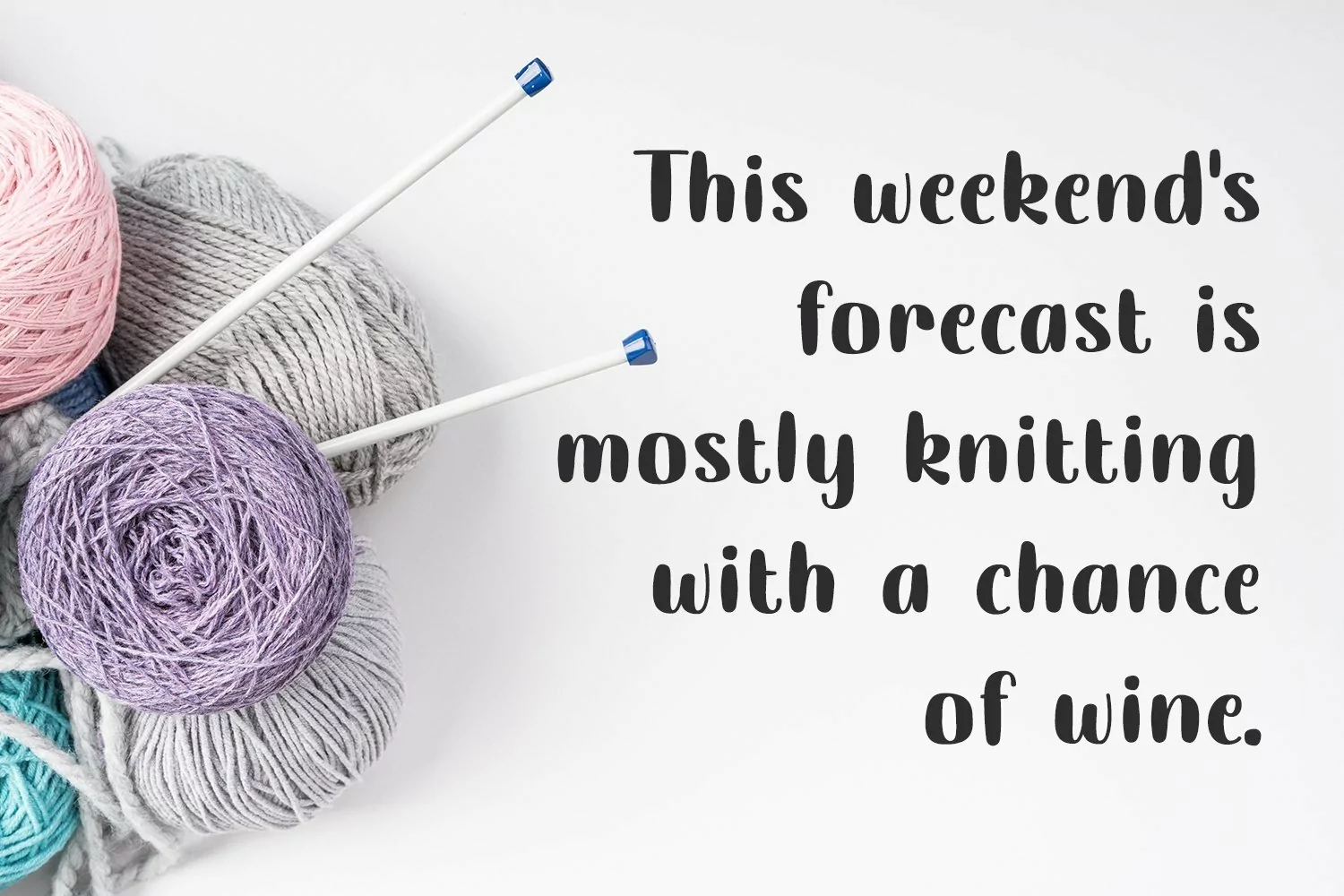
Web Font Mystril
Mystril is a display typeface. Perfect for display, quotes, branding, logotype, merchandise, crafting needs, packaging, t-shirt, print, and many more.